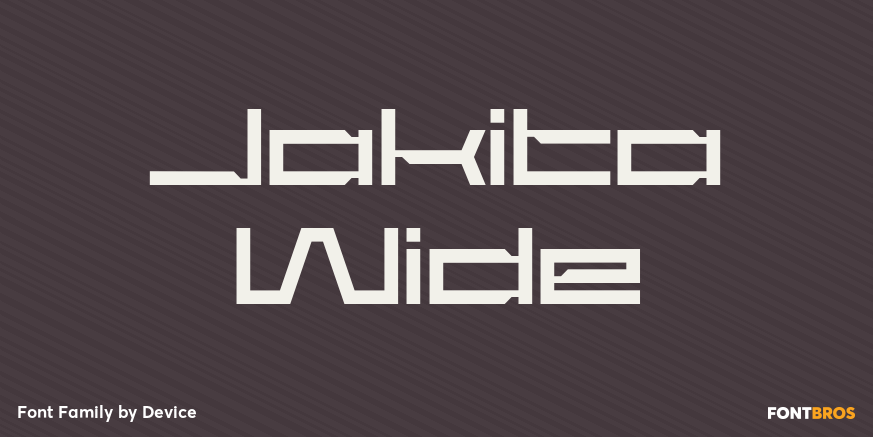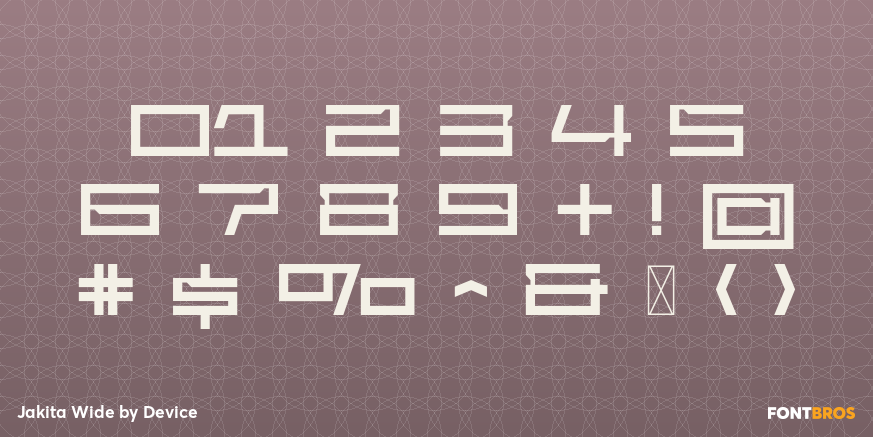
Jakita Wide
Font Family by Device
Jakita Wide is a futuristic display family with a broad, assertive silhouette and a clean contemporary feel. Its wide proportions give headlines and short phrases an immediate visual presence, making it a strong choice when you want type to feel modern, graphic, and confidently styled.
Offered by Device as a 3-style family, it includes Regular, Inline, and Bold cuts that let you shift from streamlined to more dimensional, high-impact lettering. That range makes it especially useful for logos, posters, branding, packaging, signage, and other display-driven work where a bold, forward-looking voice matters.